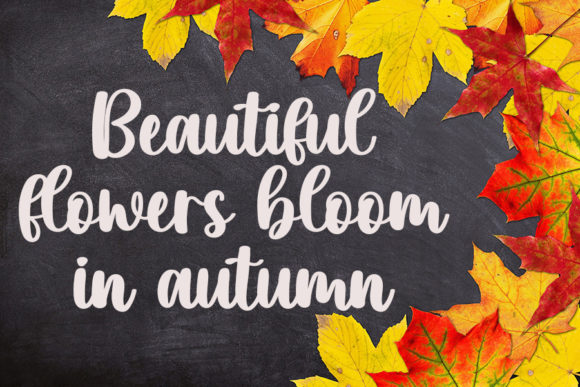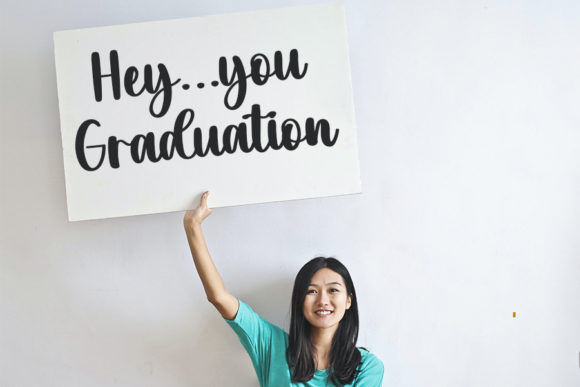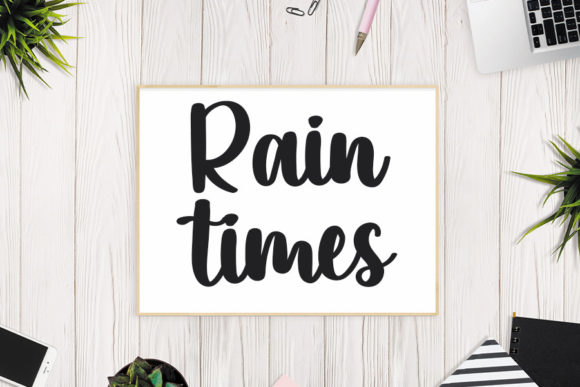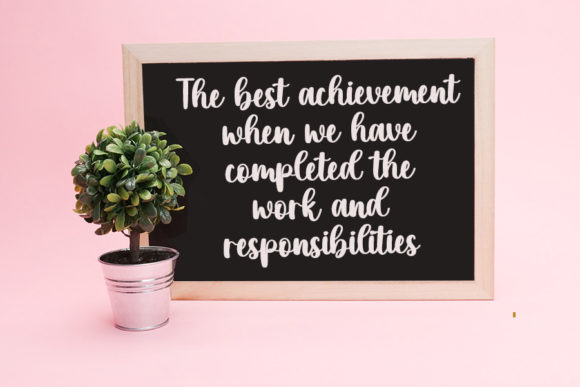
About Blacklotus Font
Blacklotus is a stylish handwritten font with a contemporary atmosphere and impeccable form, inspired by a timeless classic calligraphy. Not too thin and not too thick, balanced and varied, this font was designed to enhance the beauty of your projects.